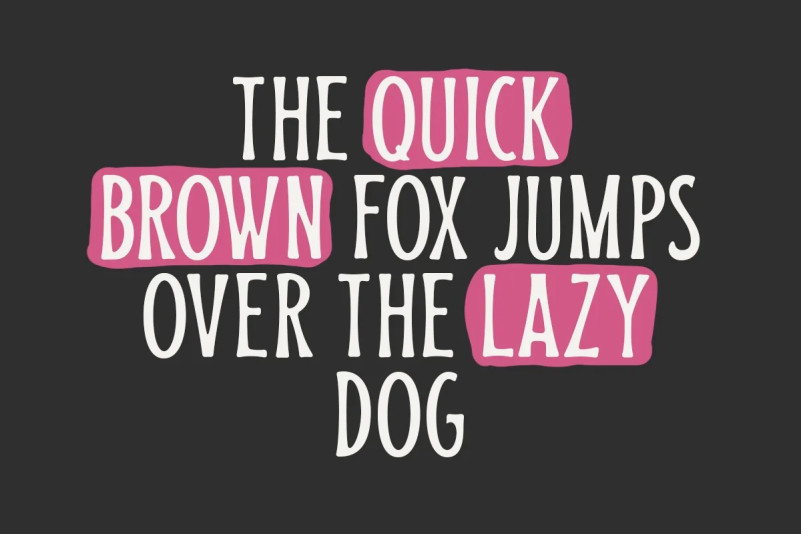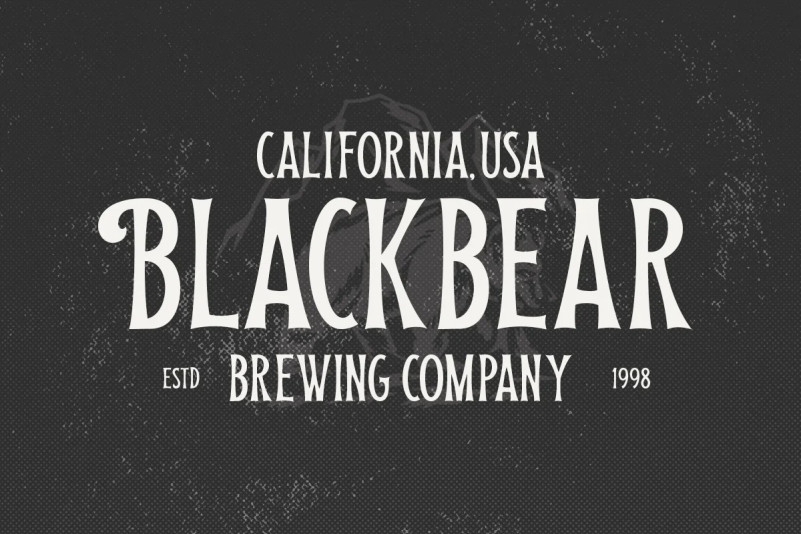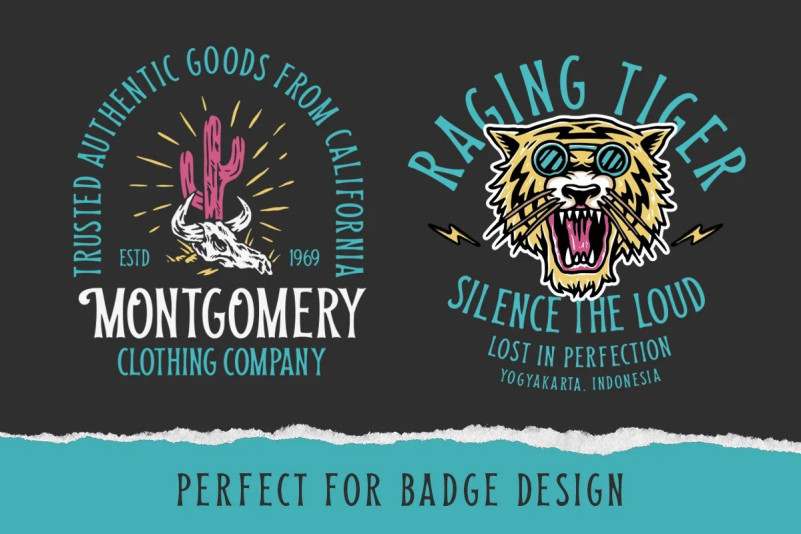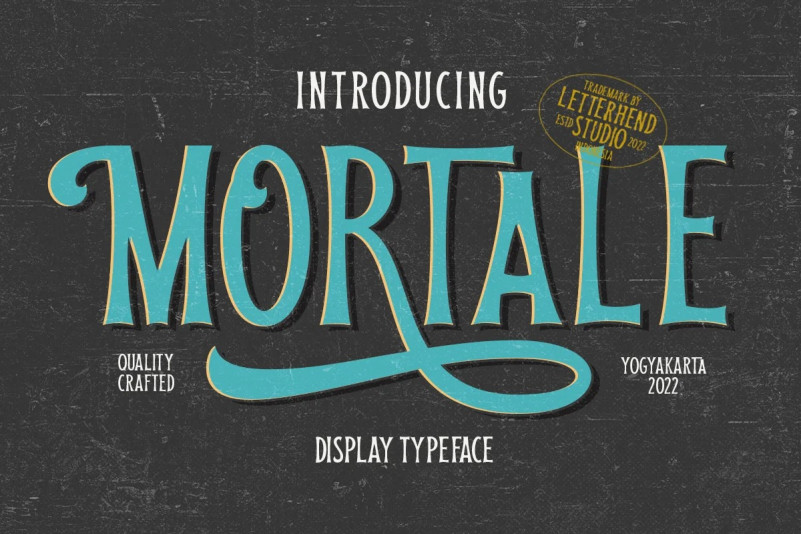
Mortale Serif Font is aesthetic serif typeface with loth of alternates. Perfect for who needing a touch of elegancy, stylish, classy, and unique. Very suitable for for headline, logotype, apparel, invitation, branding, packaging, advertising etc with old school / vintage as well as modern theme. It comes in uppercase, lowercase, punctuations, symbols & numerals, stylistic set alternate, ligatures, etc also support multilingual and already PUA encoded.